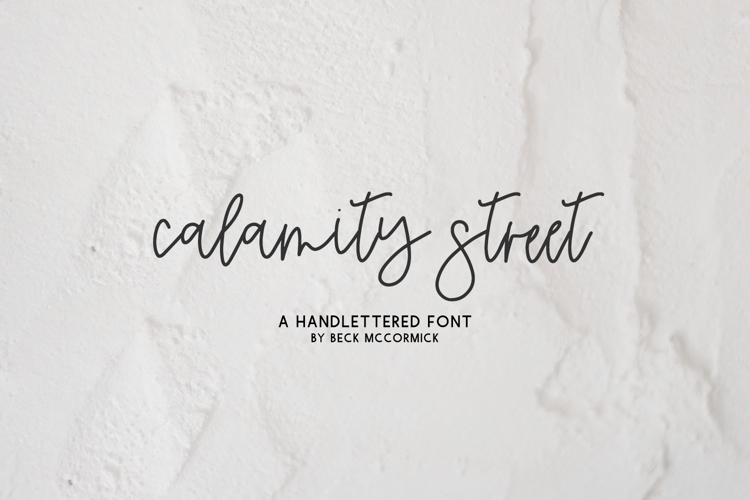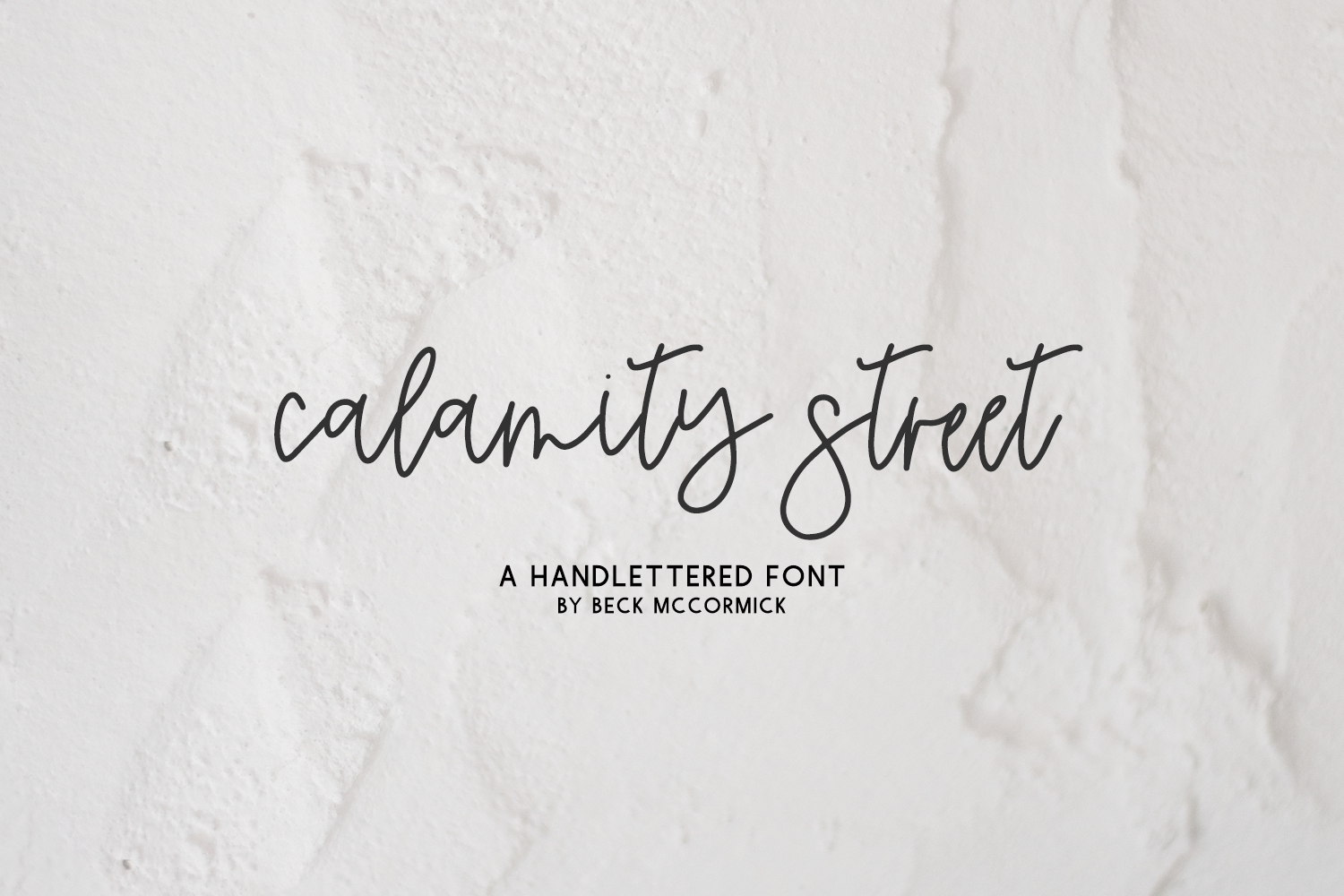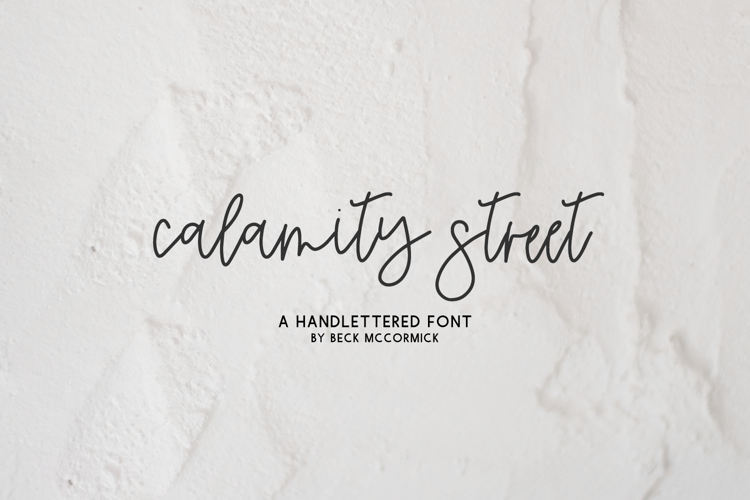
Introducing Calamity Street, a modern handwriting font.
Calamity Street includes:
- 13 ligatures - bb, dd, ee, ff, gg, ll, mm, nn, oo, pp, rr, ss, tt